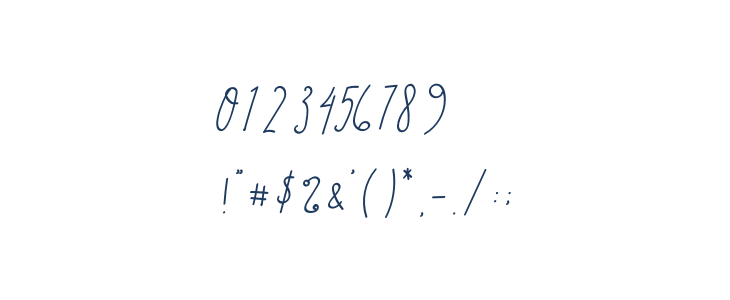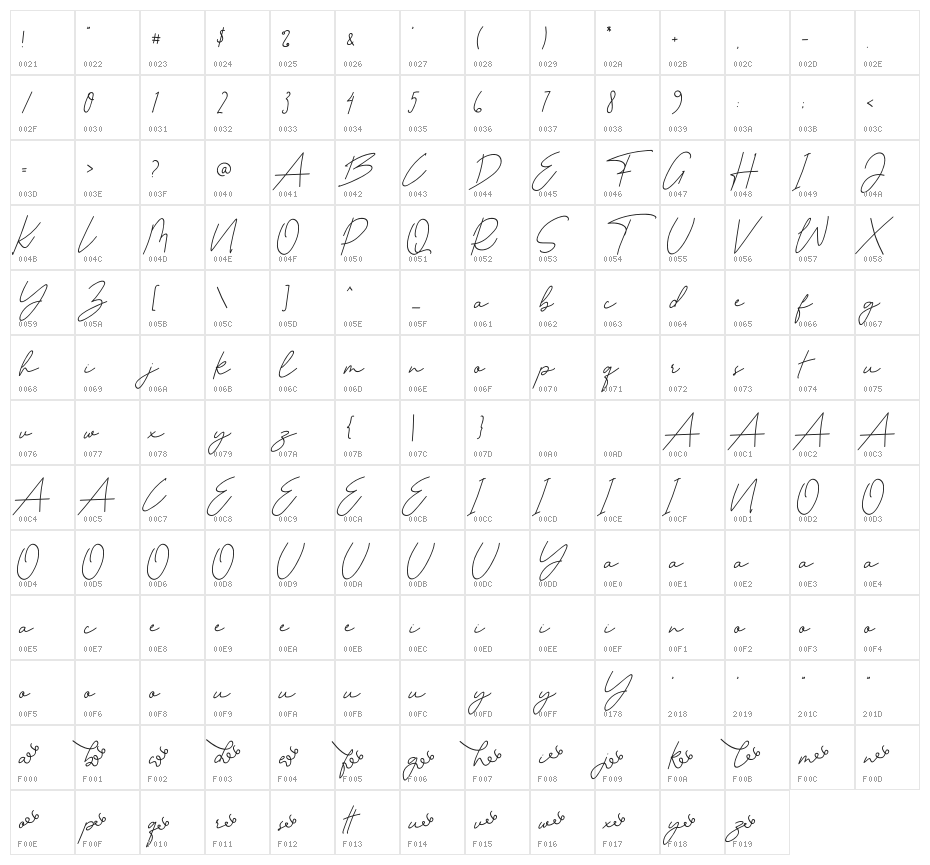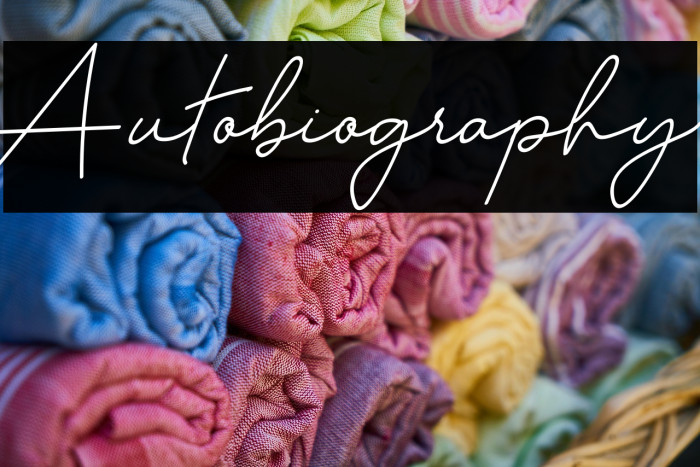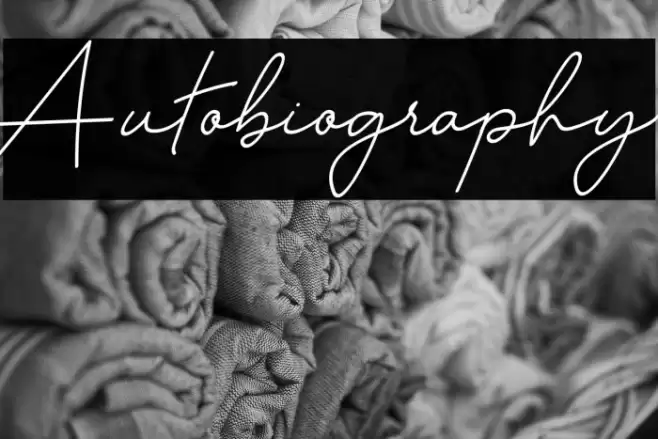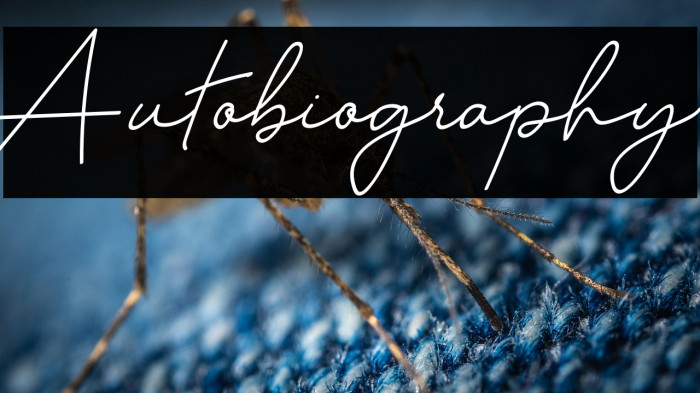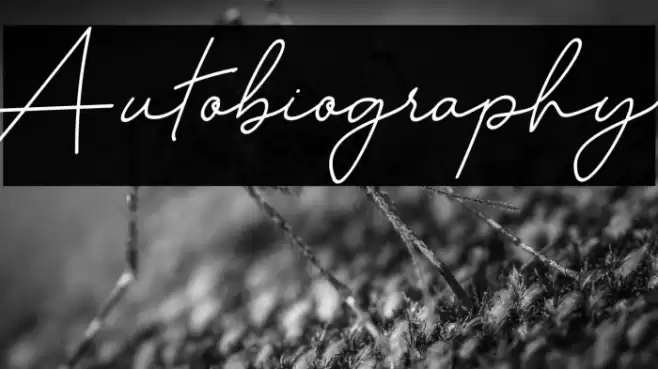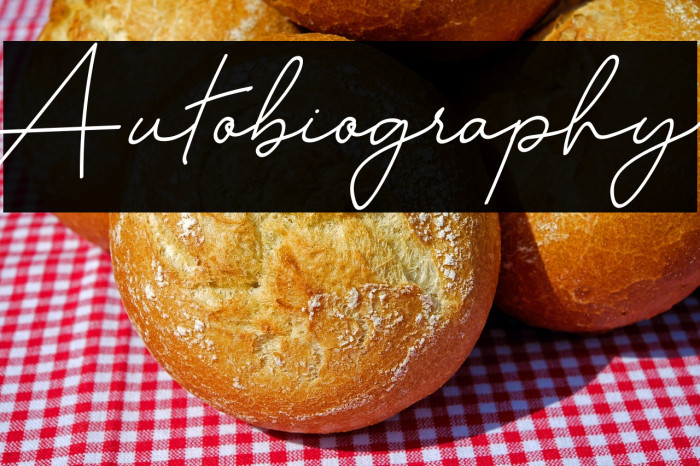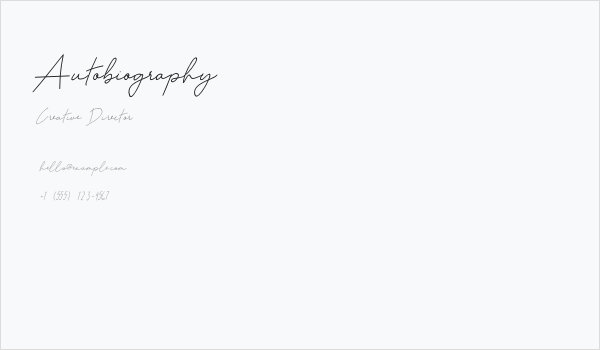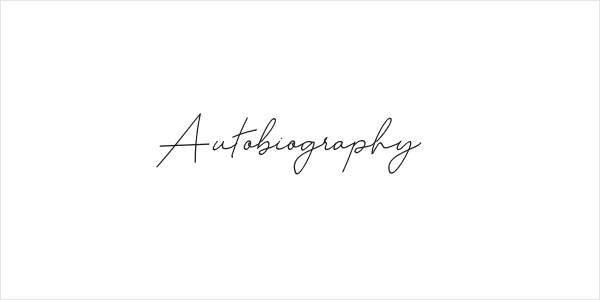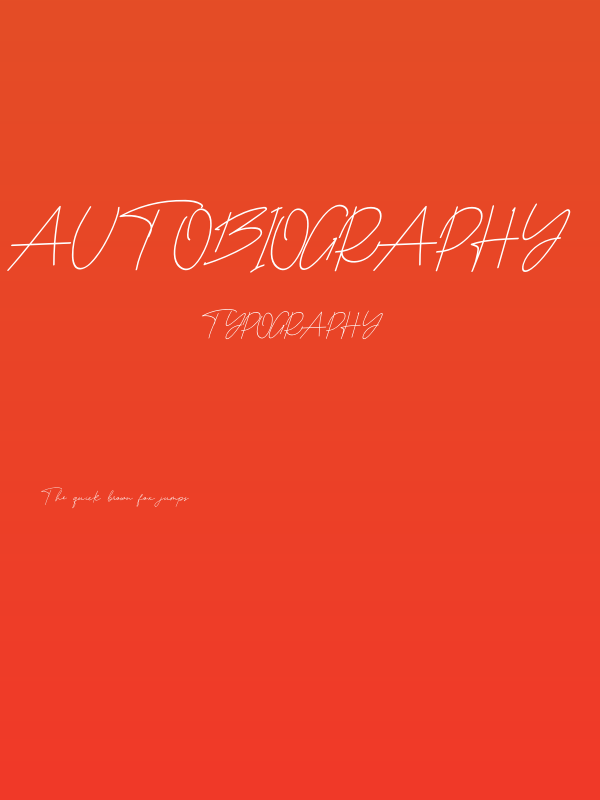
Autobiography Font
Autobiography Description
This font exudes a casual yet elegant handwritten style, characterized by its fluid and flowing script. The uppercase letters are tall and slightly narrow, with a playful slant that adds a sense of movement and dynamism. The lowercase letters maintain a consistent style, with smooth curves and a natural, organic feel. The numerals are clear and legible, complementing the overall aesthetic. Special characters are thoughtfully designed, integrating seamlessly with the rest of the font. The strokes are thin and delicate, providing a light and airy appearance that enhances readability while maintaining a sophisticated look.
| Use Case | Logos, Invitations, Personal branding |
| Proposed Projects | Ideal for personal branding, wedding invitations, greeting cards, and elegant stationery. |